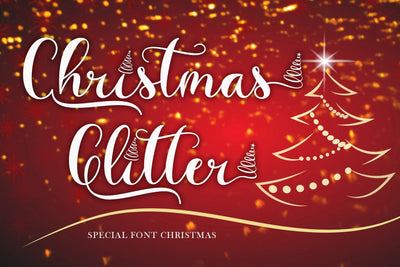
Christmas Glitter
"Christmas Glitter" is a very beautiful and unique Christmas font. This font is very easy to use, because it has been specially designed. "Christmas Glitter" comes with main letters, swash and titling, uppercase alternates, ligatures, multilingual support, numerals and punctuations. The decoration on this font is a circular and unique Christmas tree, so it will be perfect for your Christmas celebration.